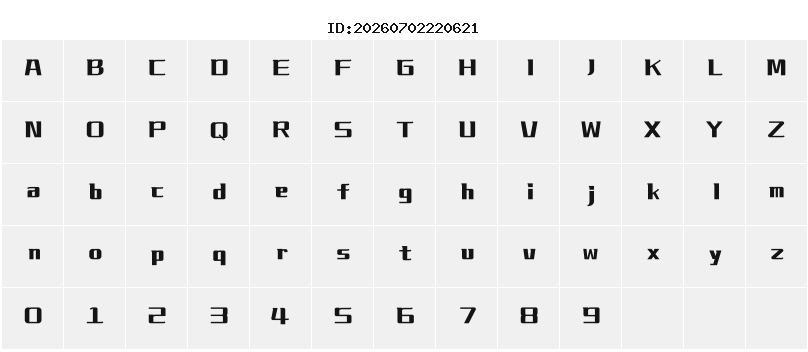
037-上首朗倩体 Preview
• Font Name: 037-上首朗倩体
• Font ID: 037-SSLangQianTi:Version 6.00
• Full Font Name: 037-上首朗倩体
• Version: Version 6.00 August 30, 2022
• PostScript Name: 037-SSLangQianTi
• Character Count: 7569
• Manufacturer: 上首造字
About 037-上首朗倩体.ttf
037-上首朗倩体.ttf is a modern, elegant sans-serif font designed for ultimate readability and visual harmony. Perfect for branding, headlines, web design, and print materials.